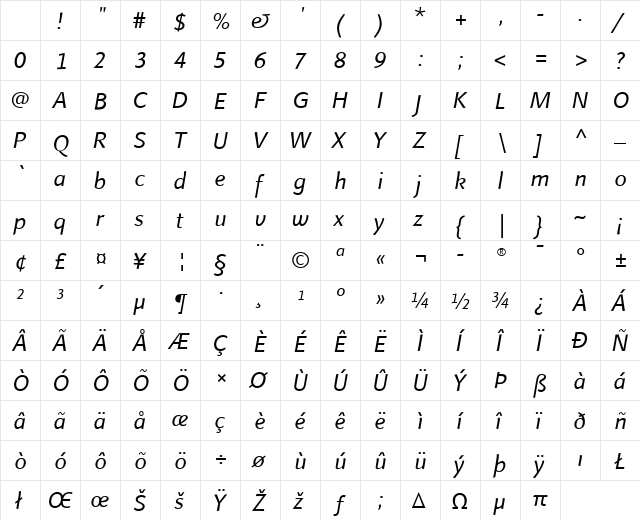
Complete LTFinnegan Regular Italic glyph index. Displaying only characters natively supported by LTFinnegan Regular Italic font.
LTFinnegan Regular is a composed and adaptable typeface that performs quietly and consistently across a wide range of design contexts. The slanted form adds forward momentum and visual energy.